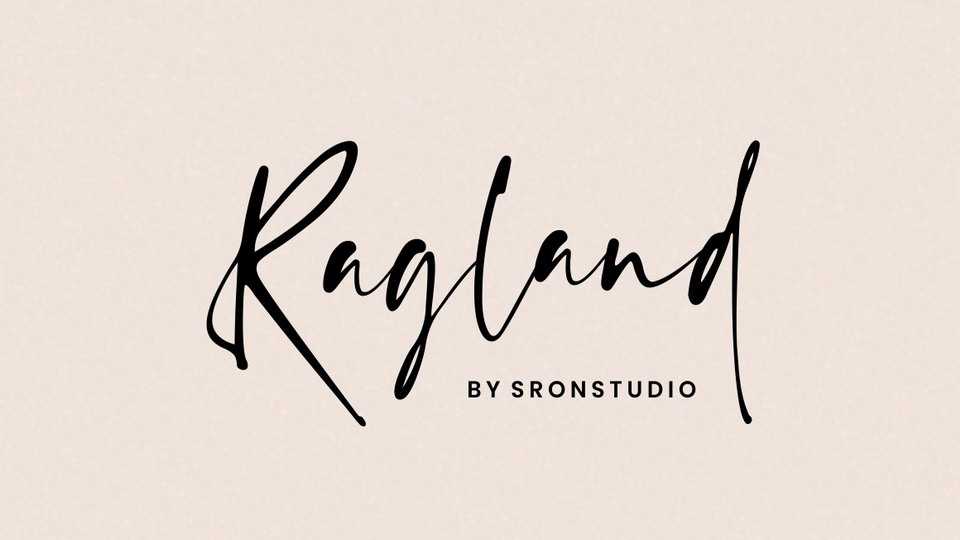
Download Ragland font, a natural handwritten script with a signature style. It perfect for personal branding, logo, invitation, wedding designs, social media posts, advertisements, label, photography, watermark, special events or anything.
Designer: Sronstudio